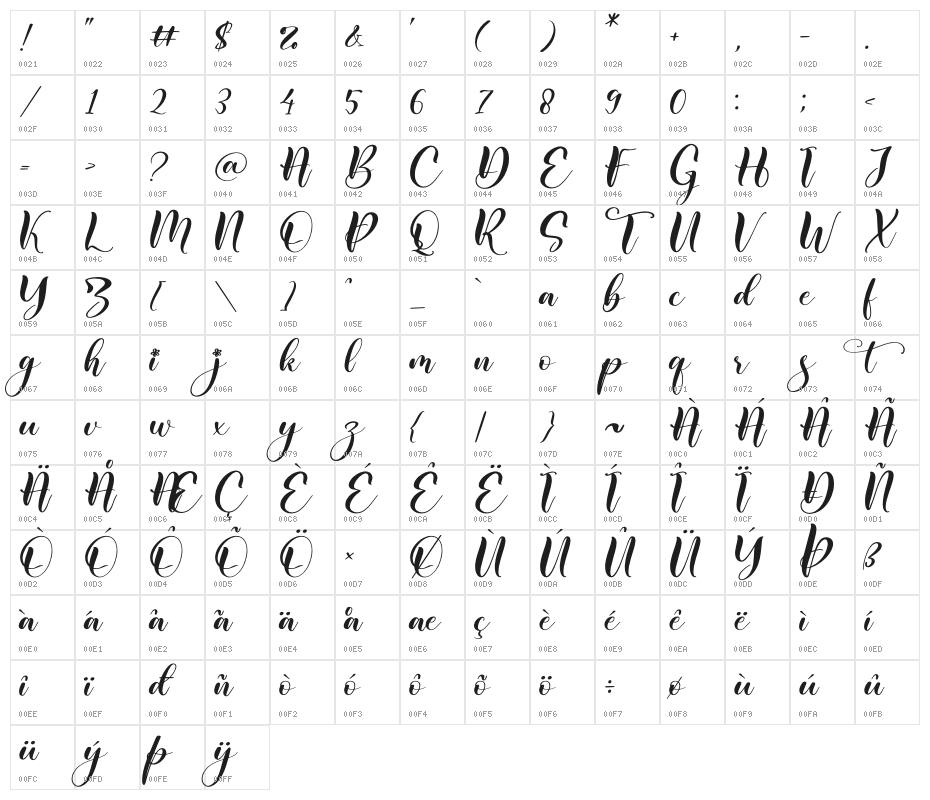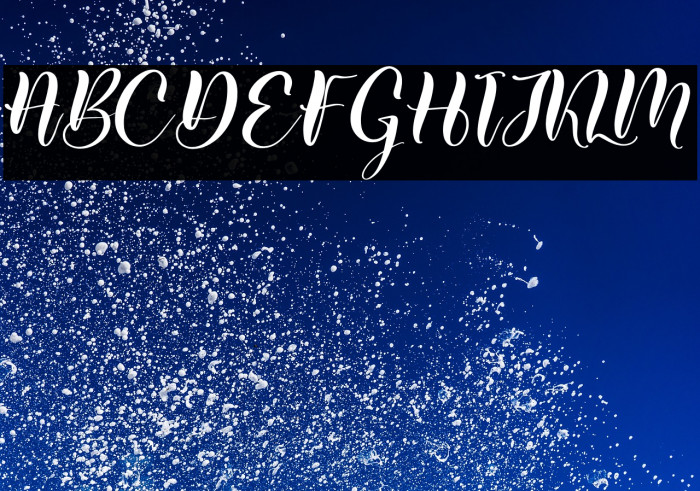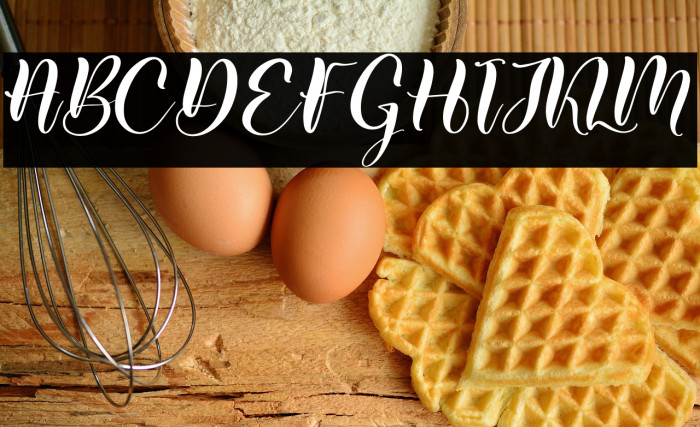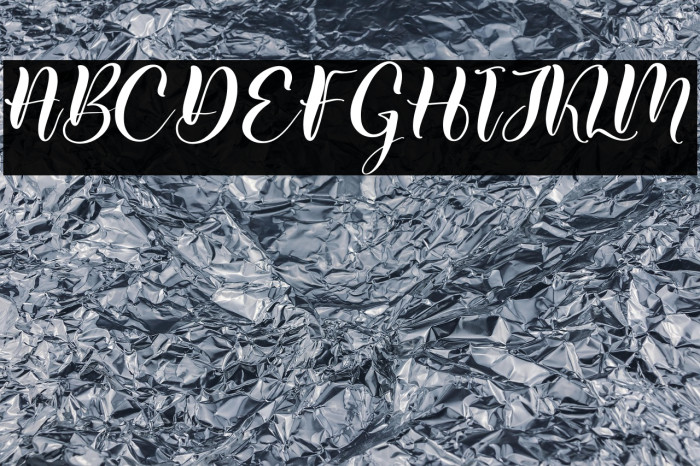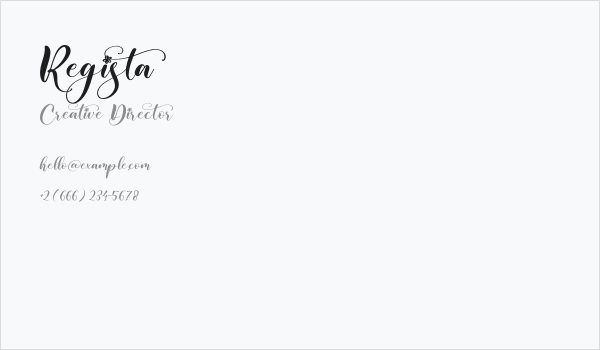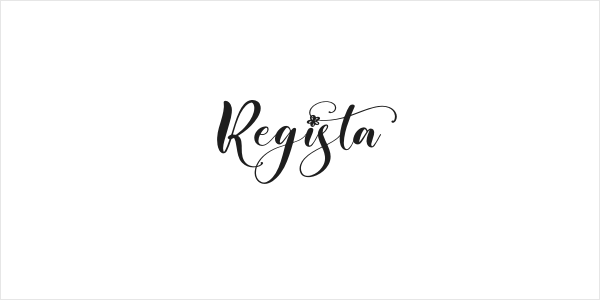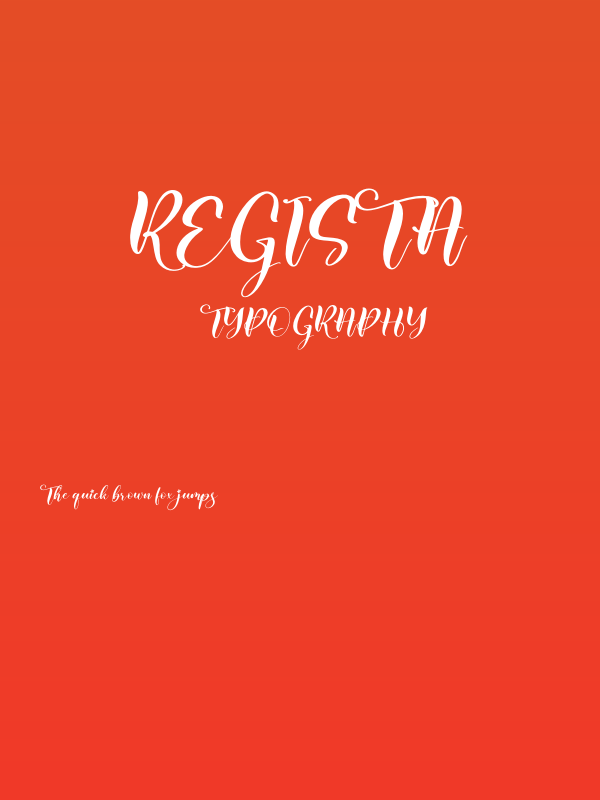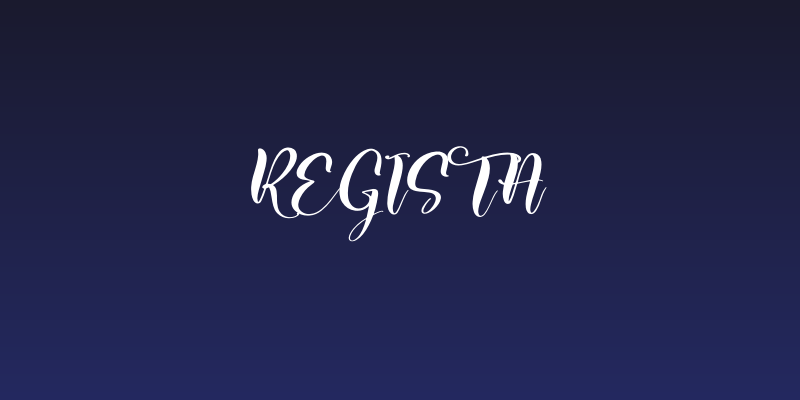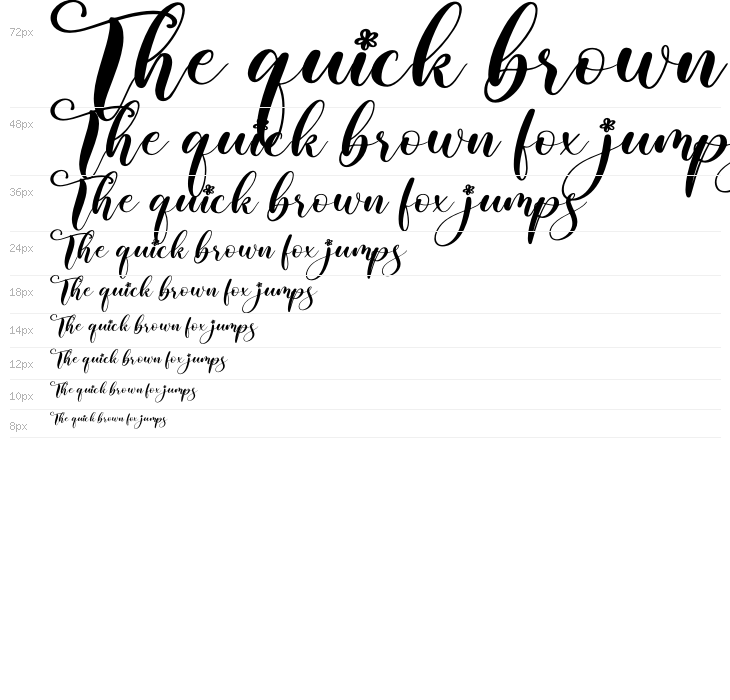
Regista Font
Regista Description
This font exudes elegance and sophistication with its flowing, cursive script style. The characters are intricately designed, featuring smooth curves and delicate flourishes that add a touch of grace and refinement. The uppercase letters are bold and prominent, while the lowercase letters maintain a consistent flow, creating a harmonious balance. The numerals and special characters are crafted with the same attention to detail, ensuring a cohesive look throughout. This font is perfect for projects that require a touch of class and elegance, such as wedding invitations, luxury branding, or high-end product packaging.
| Proposed Projects | Ideal for wedding invitations, luxury branding, and high-end product packaging. |